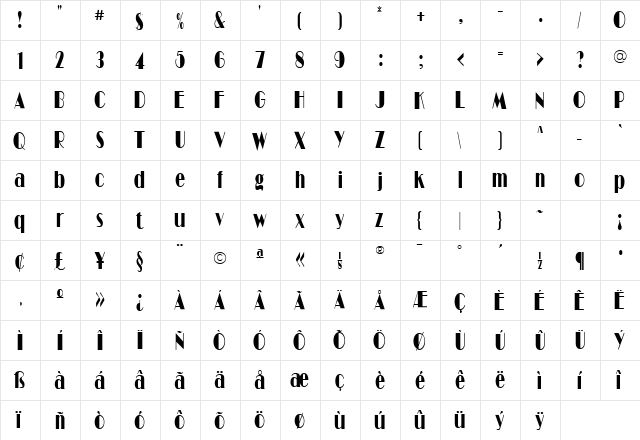
OranCond Normal
Design Context for OranCond Typeface
OranCond is a composed and adaptable typeface that performs quietly and consistently across a wide range of design contexts. Its narrow stance lets it pack a punch even in space-constrained designs.